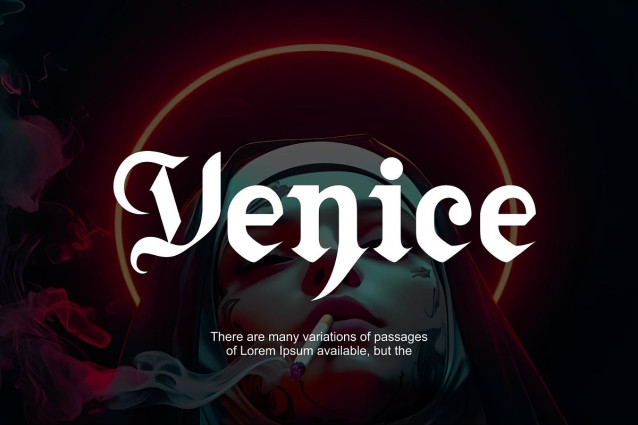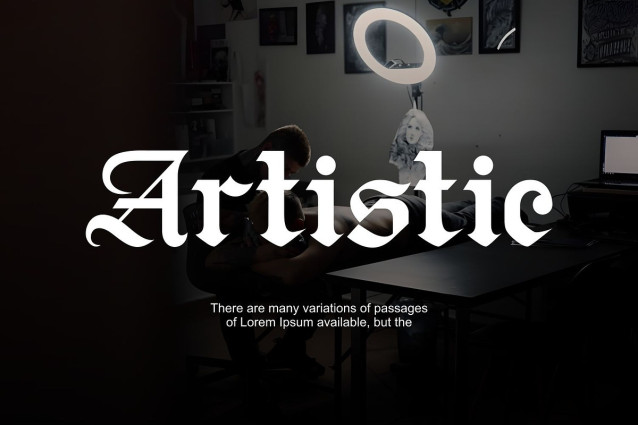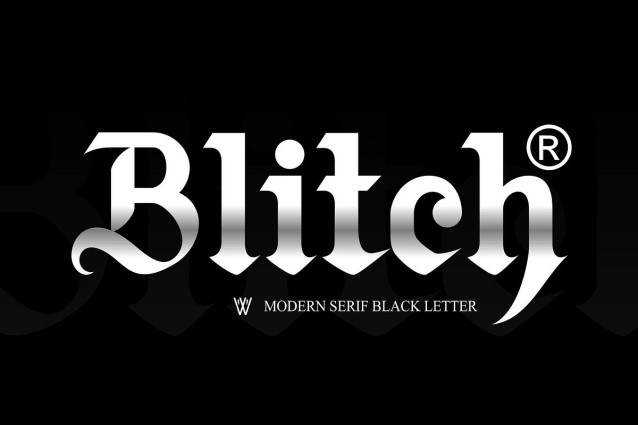
Blitch Font
Blitch Font | Blackletter, Chicano, Old English Fonts | Procreate & Photoshop font| Perfect for Custom Tattoos.”, meticulously crafted for artists and designers seeking authentic tattoo-inspired typography. This collection features a diverse range of blackletter calligraphy fonts, perfect for custom tattoo designs, logos.